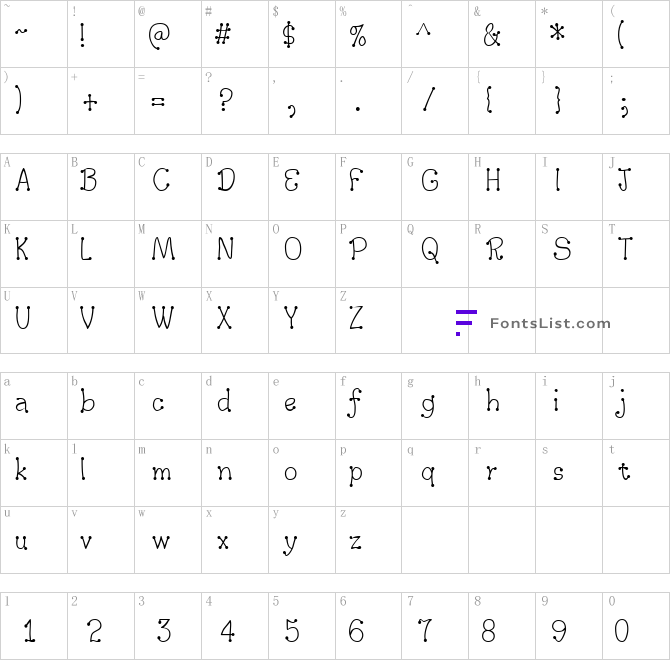
- Font Name:ArgentabObbed
ArgentabObbed.ttf is a very beautiful artistic font, ArgentabObbed.ttf is widely used in the design and printing of various books and pictures,ArgentabObbed.ttf has a strong visual impact,ArgentabObbed.ttf is a commonly used font in newspapers, magazines and books, and is used in posters, e-commerce Poster design, store design, logo design, font design and other fields.ArgentabObbed.